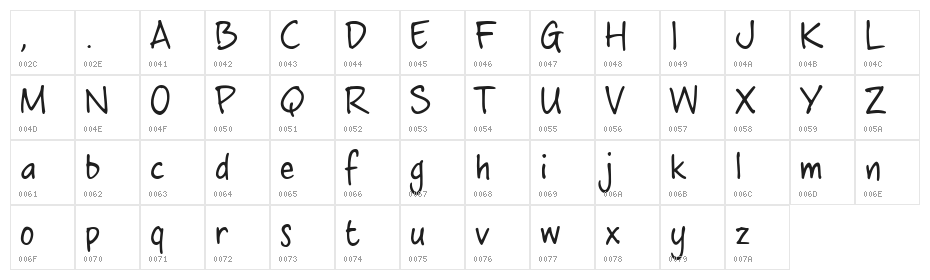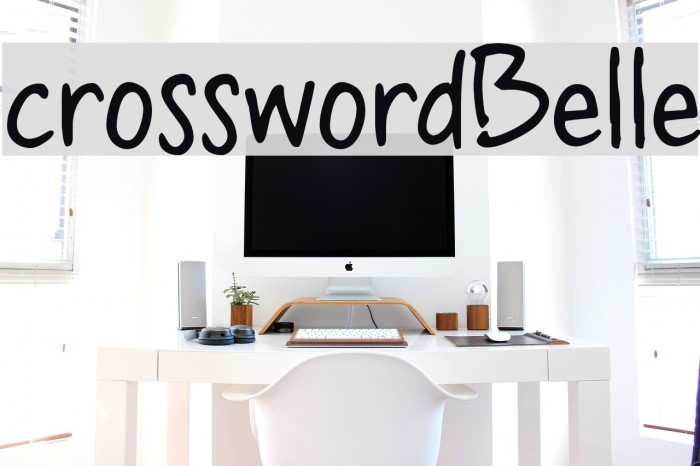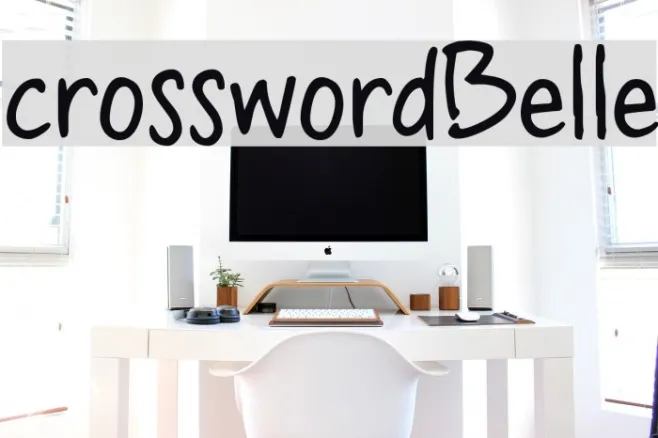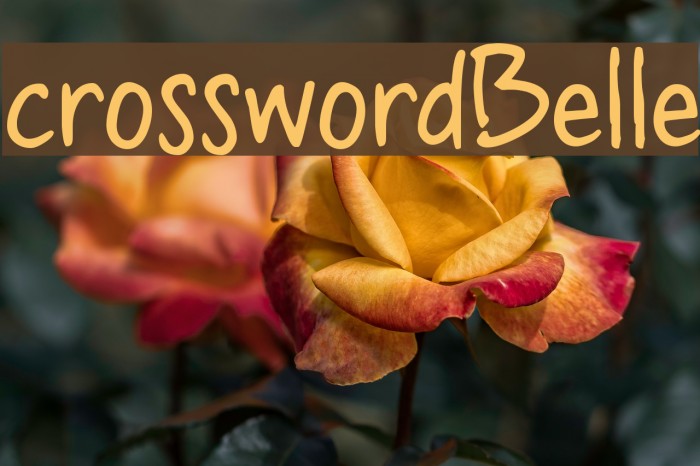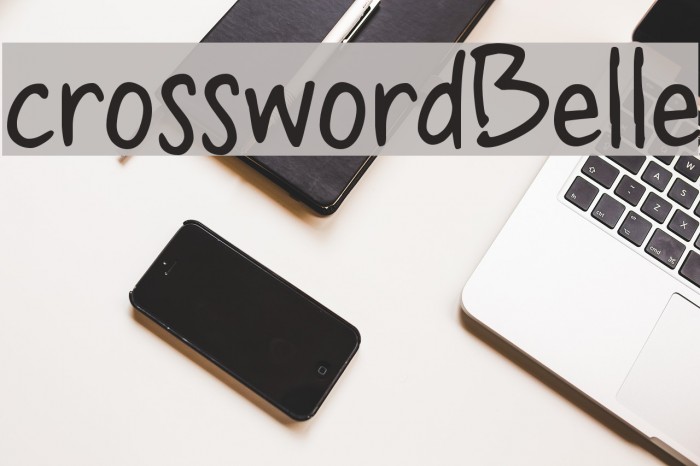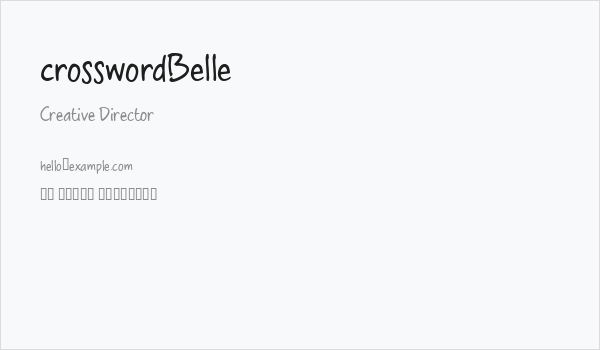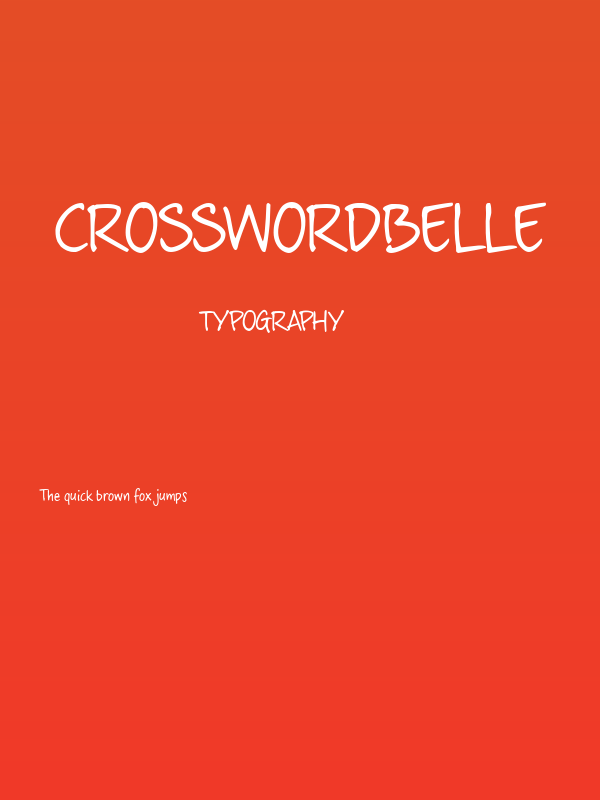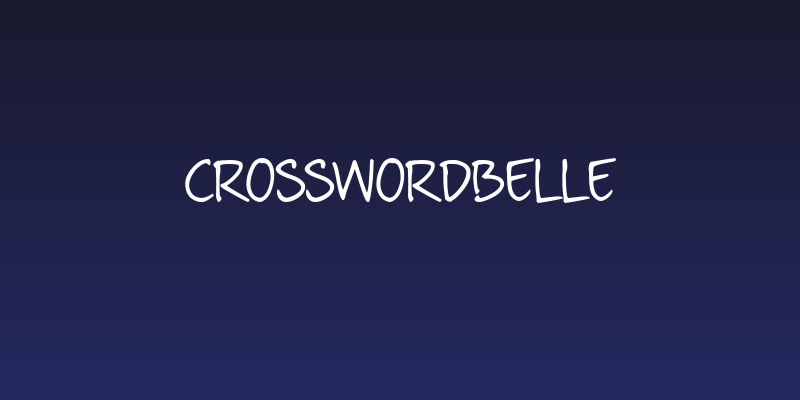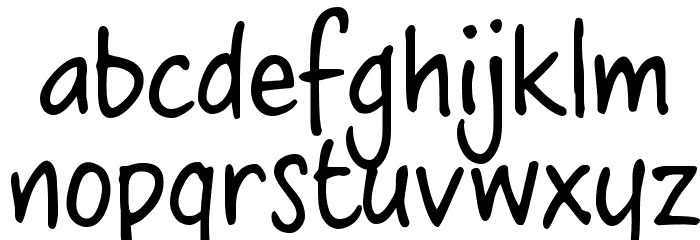
crosswordBelle Font
crosswordBelle Description
This playful and casual handwritten font exudes a friendly and approachable vibe. The letters are slightly irregular, giving it an authentic, hand-drawn appearance. The uppercase characters are bold and slightly wider, while the lowercase letters maintain a consistent flow with rounded edges. The font's informal style is complemented by its medium contrast, where the stroke thickness varies subtly, adding to its charm. The character spacing is normal, ensuring readability while maintaining its unique style. This font is ideal for projects that require a personal touch, such as greeting cards, invitations, or playful branding.